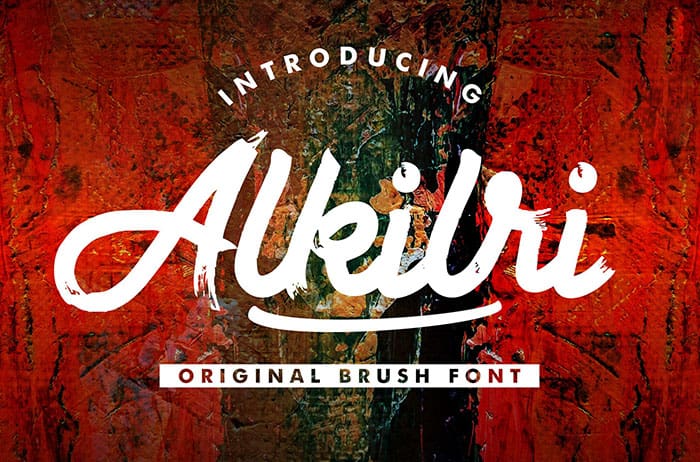
Free Alkilri Brush Font with a calligraphy style, So beautiful on invitation like greeting cards, branding materials, business cards, quotes, posters, and more! Thanks to Vunira Studio for sharing this font! Take a look at this portfolio for more of his stunning fonts.
Designed By : Vunira Studio